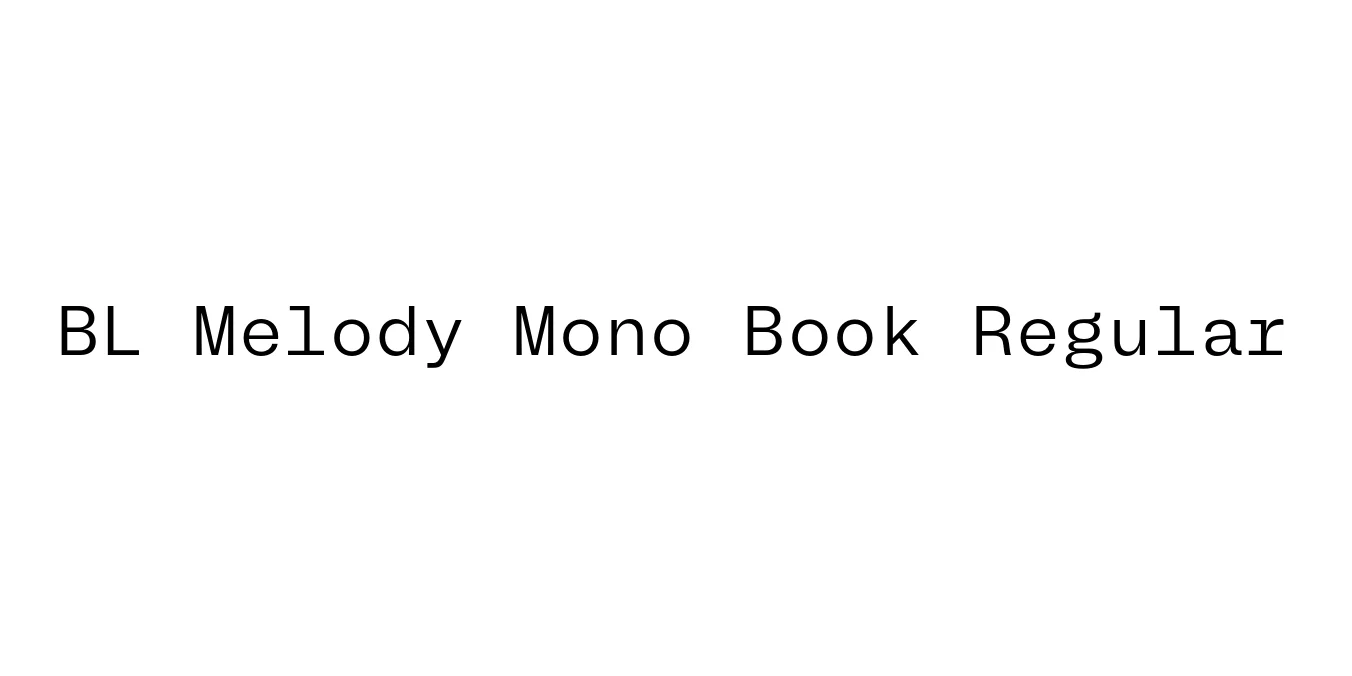
BL Melody Mono Book Regular
Designed by Boulevard LAB
| Category | Monospaced |
| Designer | Boulevard LAB |
BL Melody Mono Book Regular is a contemporary monospaced typeface crafted by the innovative design studio Boulevard LAB. This font family was developed to bridge the gap between the rigid constraints of traditional coding fonts and the fluid aesthetics of modern editorial design. By focusing on a rhythmic spacing and distinct character geometry, it provides a unique visual melody that remains highly functional for both technical and creative applications.
The Book Regular weight is specifically optimized for legibility, featuring open counters and clean terminals that ensure clarity even at smaller point sizes. Whether used in a code editor or as a primary brand typeface, BL Melody Mono stands out for its sophisticated balance of structural precision and artistic flair, making it an essential tool for designers looking to convey a sense of modern efficiency and digital-native style.
BL Melody Mono Book Regular Best Uses
Ideal for code editors and terminal displays where character distinction is crucial.
Works perfectly for tech-focused startups and modern minimalist brand systems.
Adds a clean, systematic look to user interfaces and dashboard components.
Provides a structured, architectural feel to magazine headers and body text.